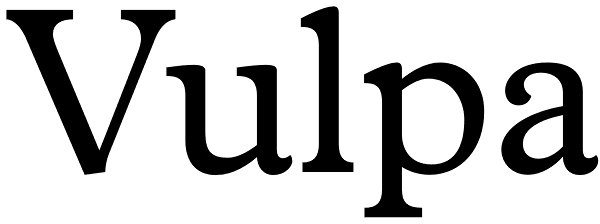
Vulpa
Vulpa is a charming serif family in regular, italic and bold, informed by the proportions of a personal favorite, Plantin. The quirky foxtail terminals (inspired in part by my script font, Gelato Script) can be seen across all three styles. These...